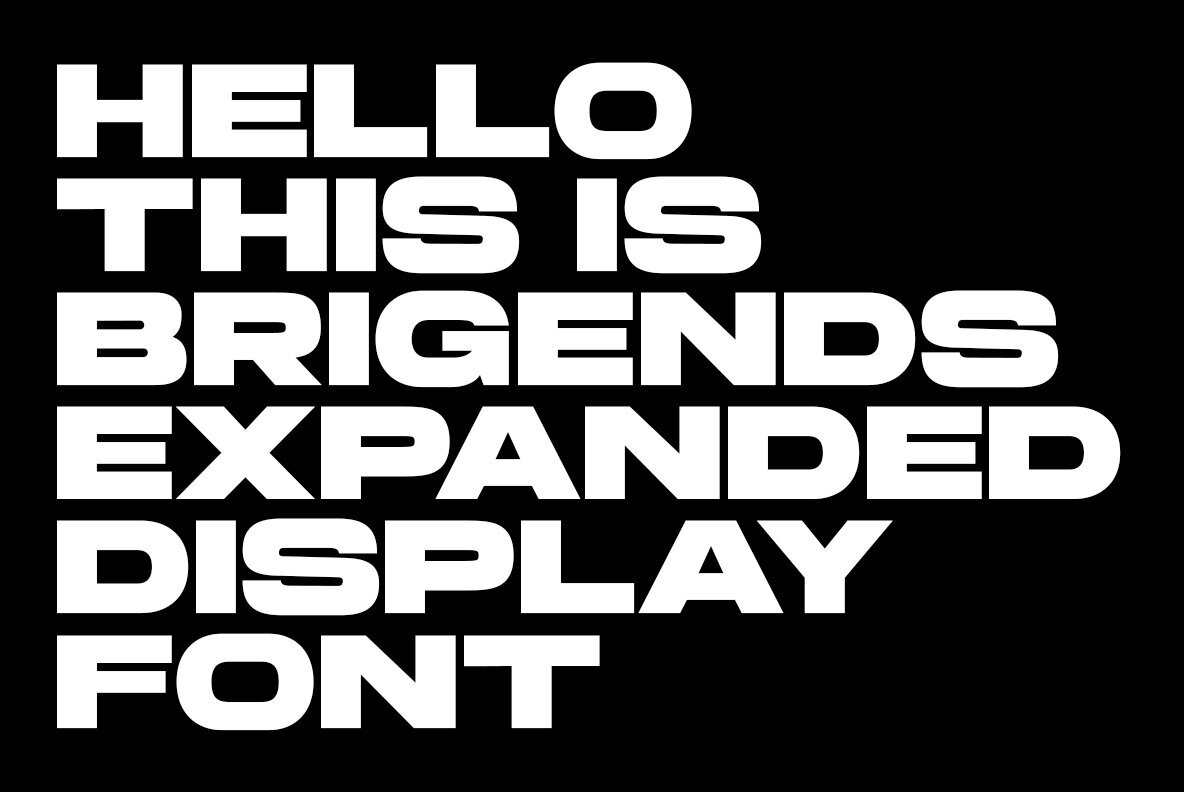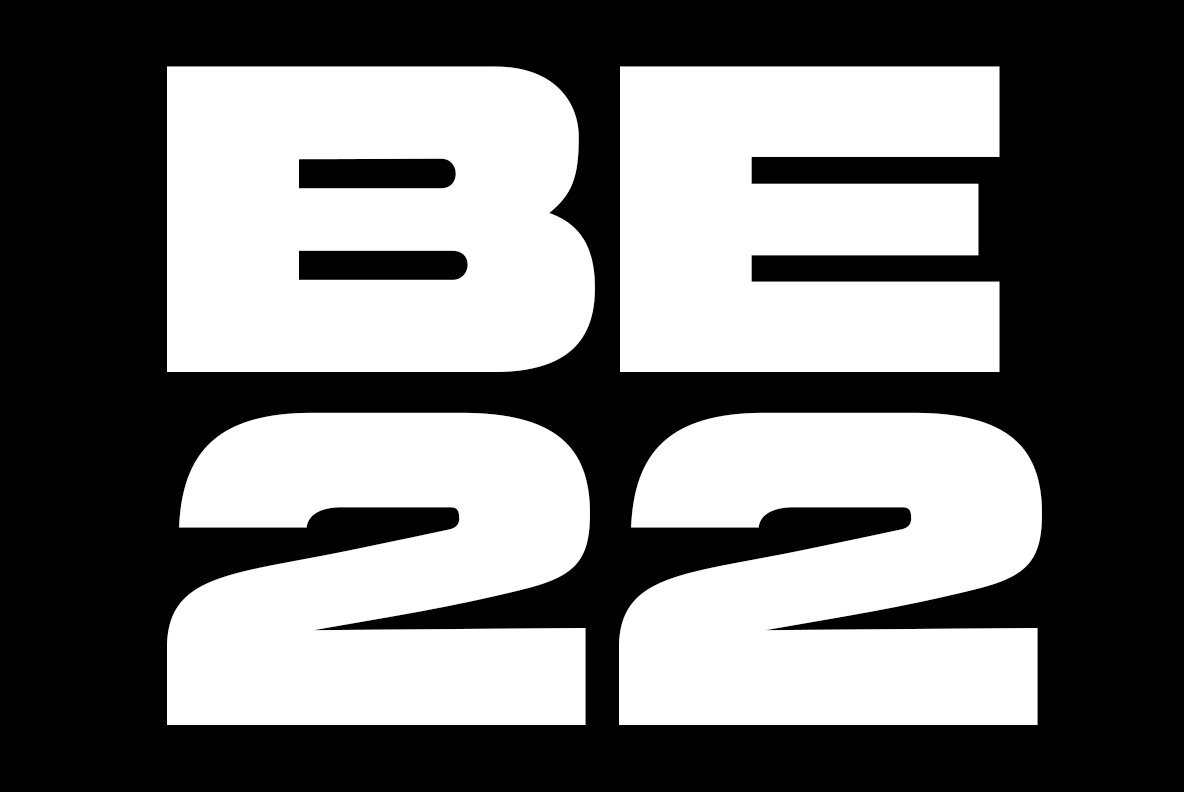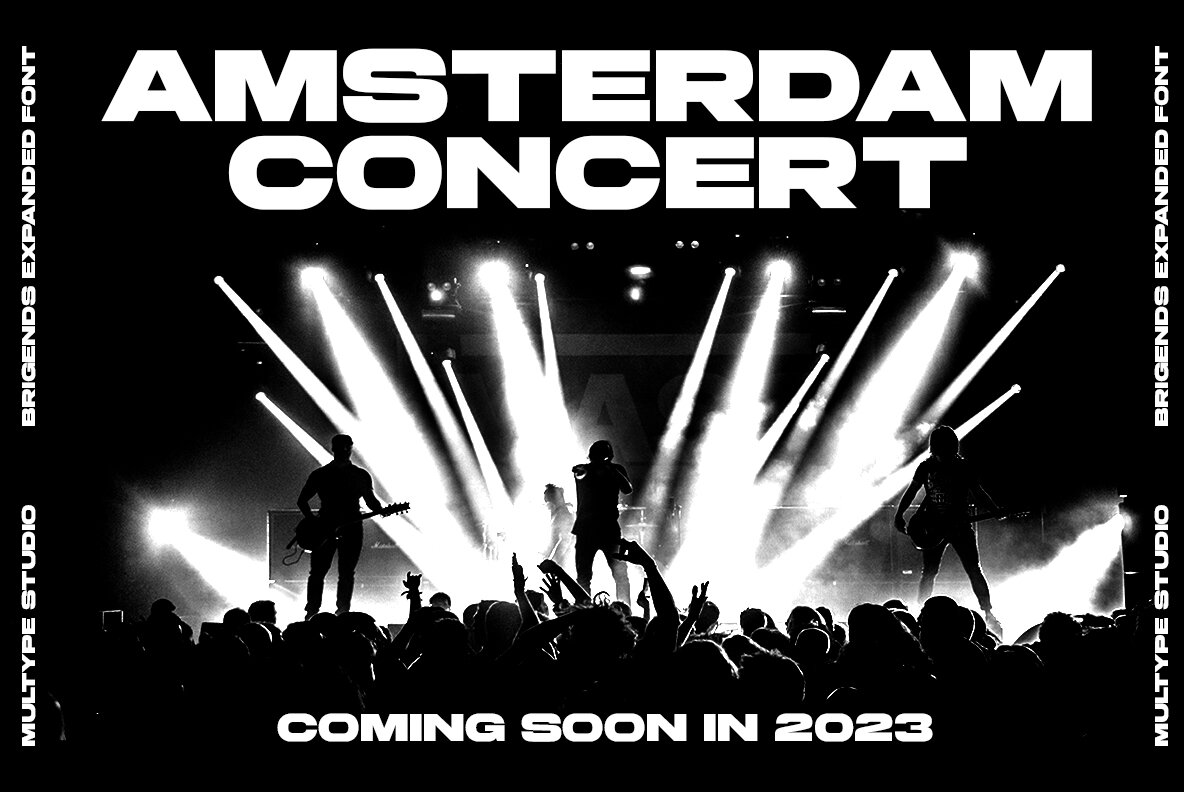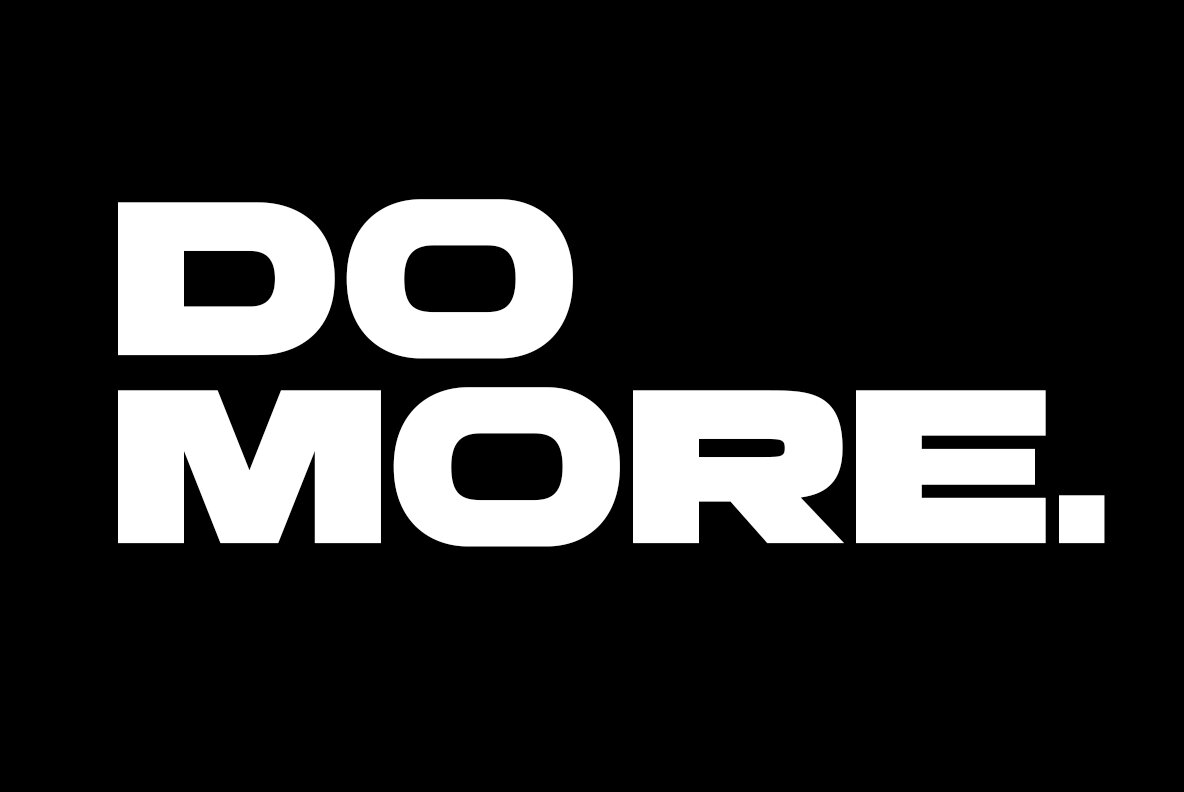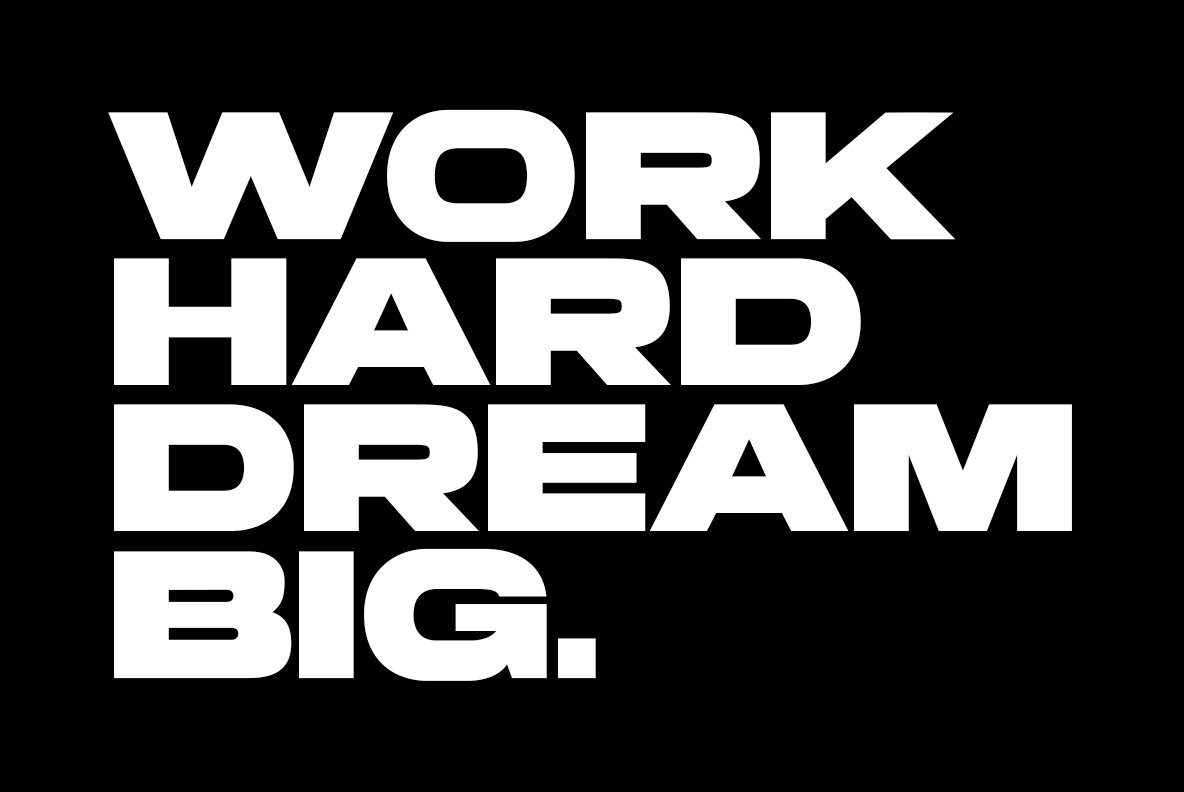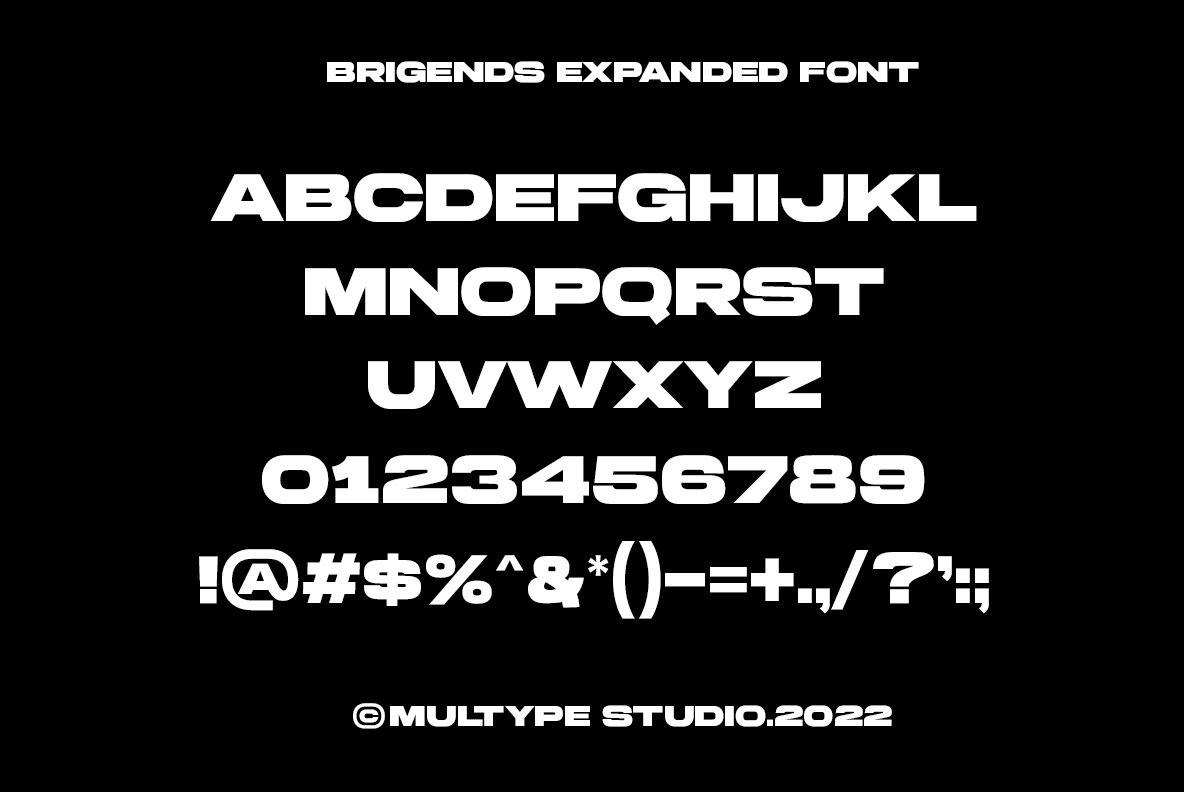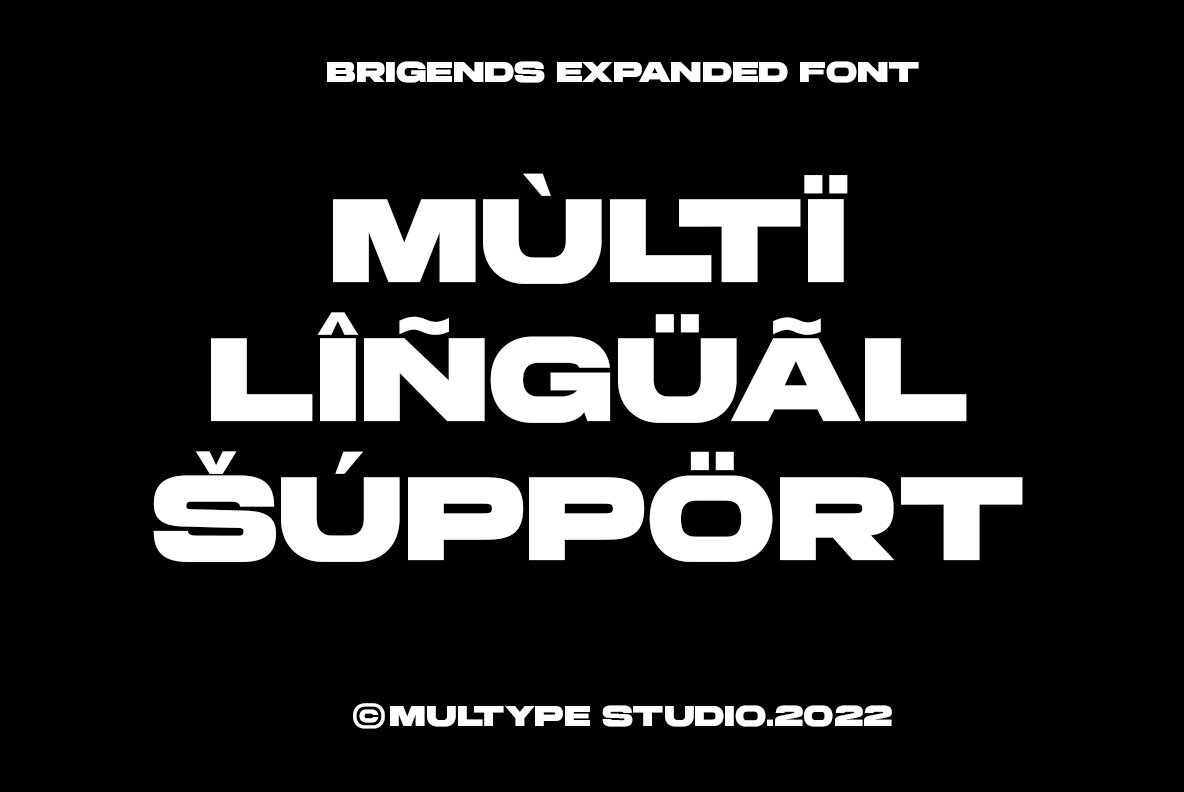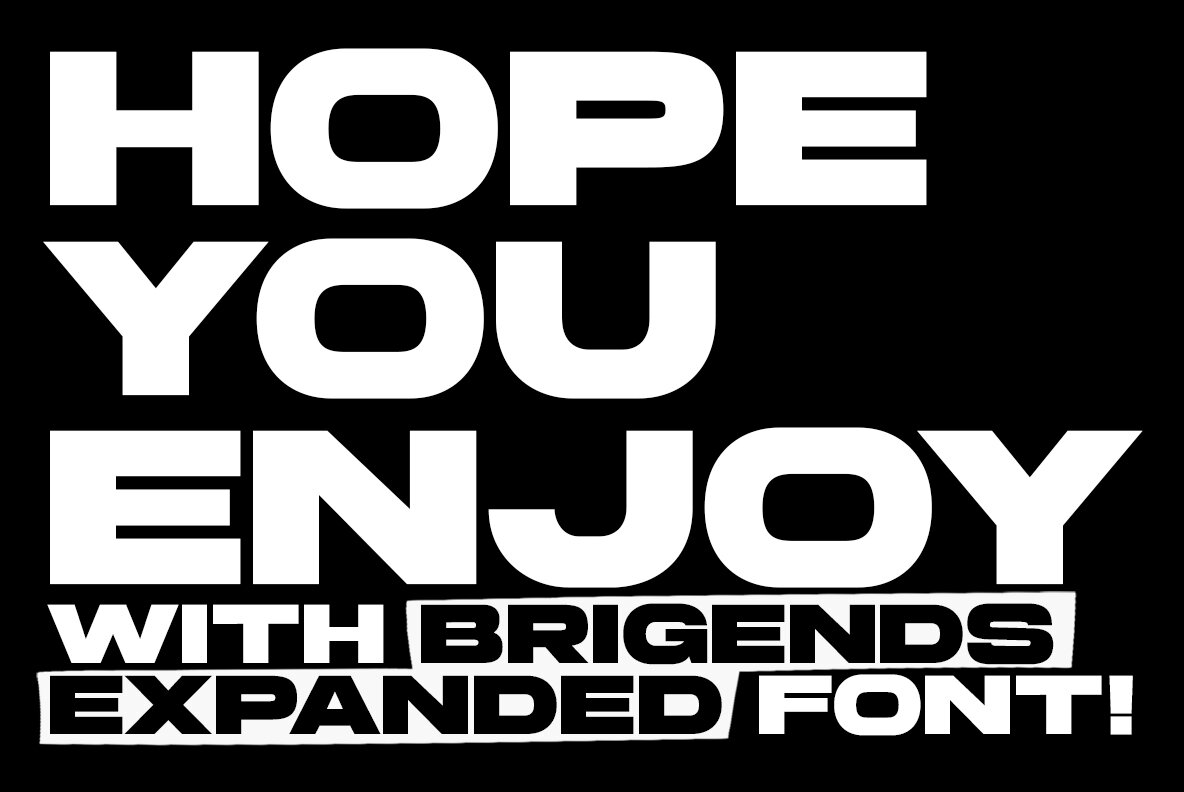
Brigends Expanded Font
Brigends Expanded
Brigends Expanded is a bold sans serif font which looks great to be modern and strong impression to your design.
This font is also suitable to be applied especially in logo, branding, promotions, posters, book covers, magazine layouts, social media, headlines, titling, movie title, logo brand, logo company, layout website and other design.